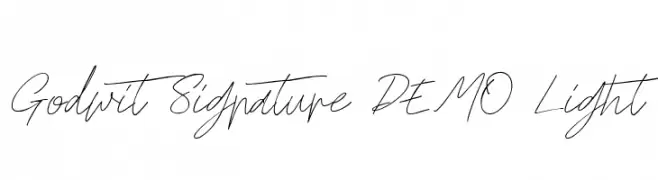
A flowing, cursive script font with an elegant, signature-like style.
A flowing, elegant script font with a natural handwriting style.
A sophisticated, elegant handwritten font with fluid, continuous strokes.